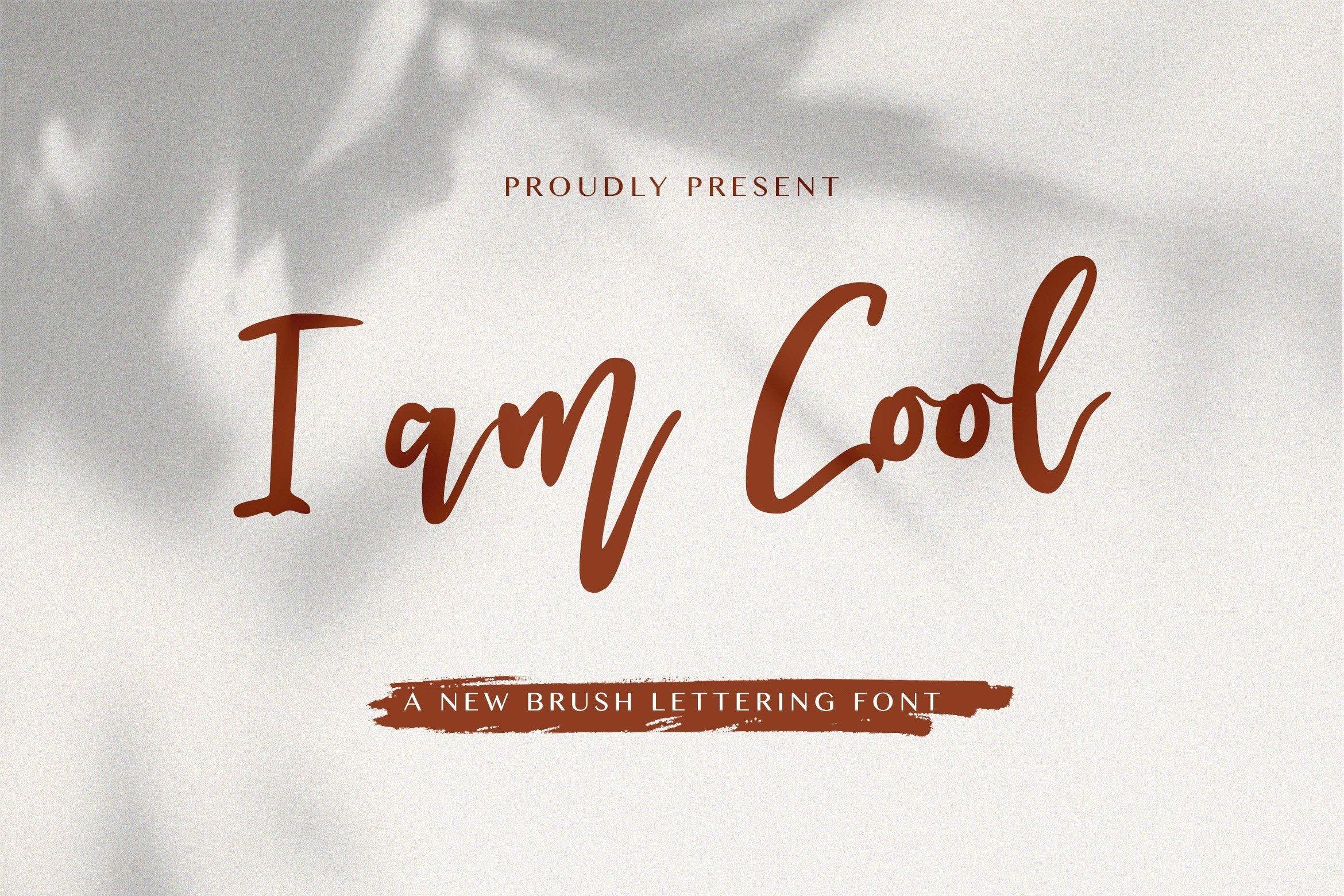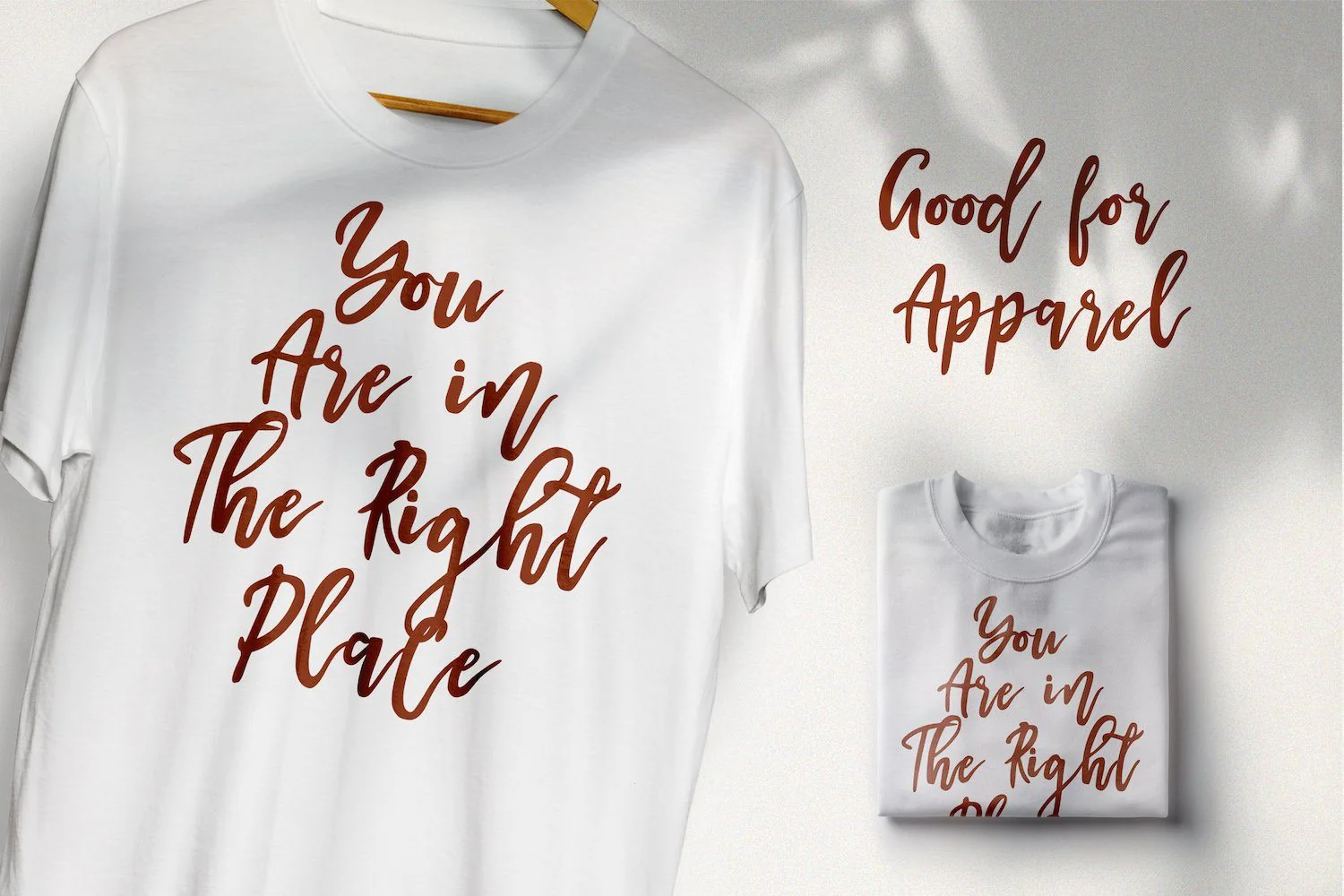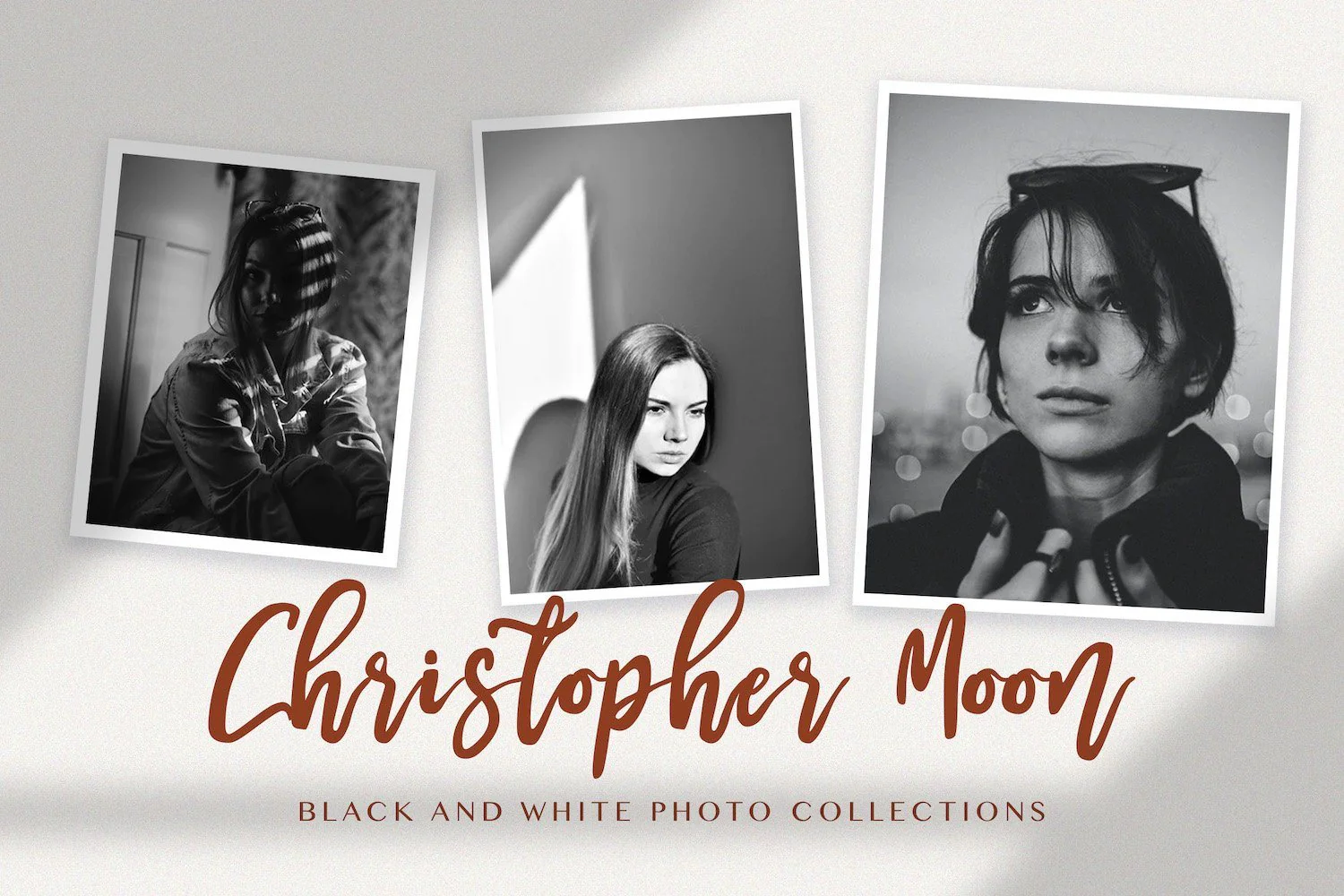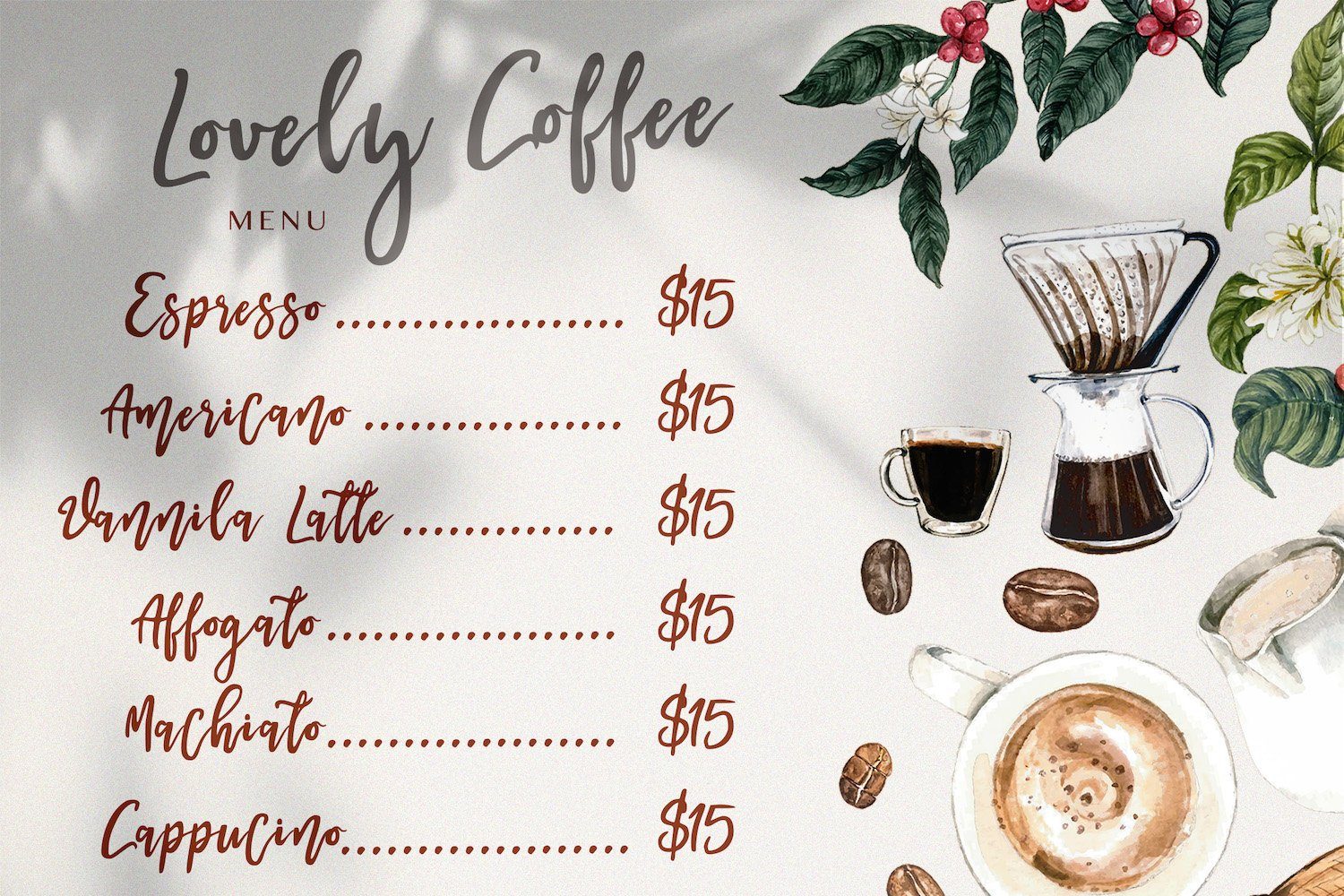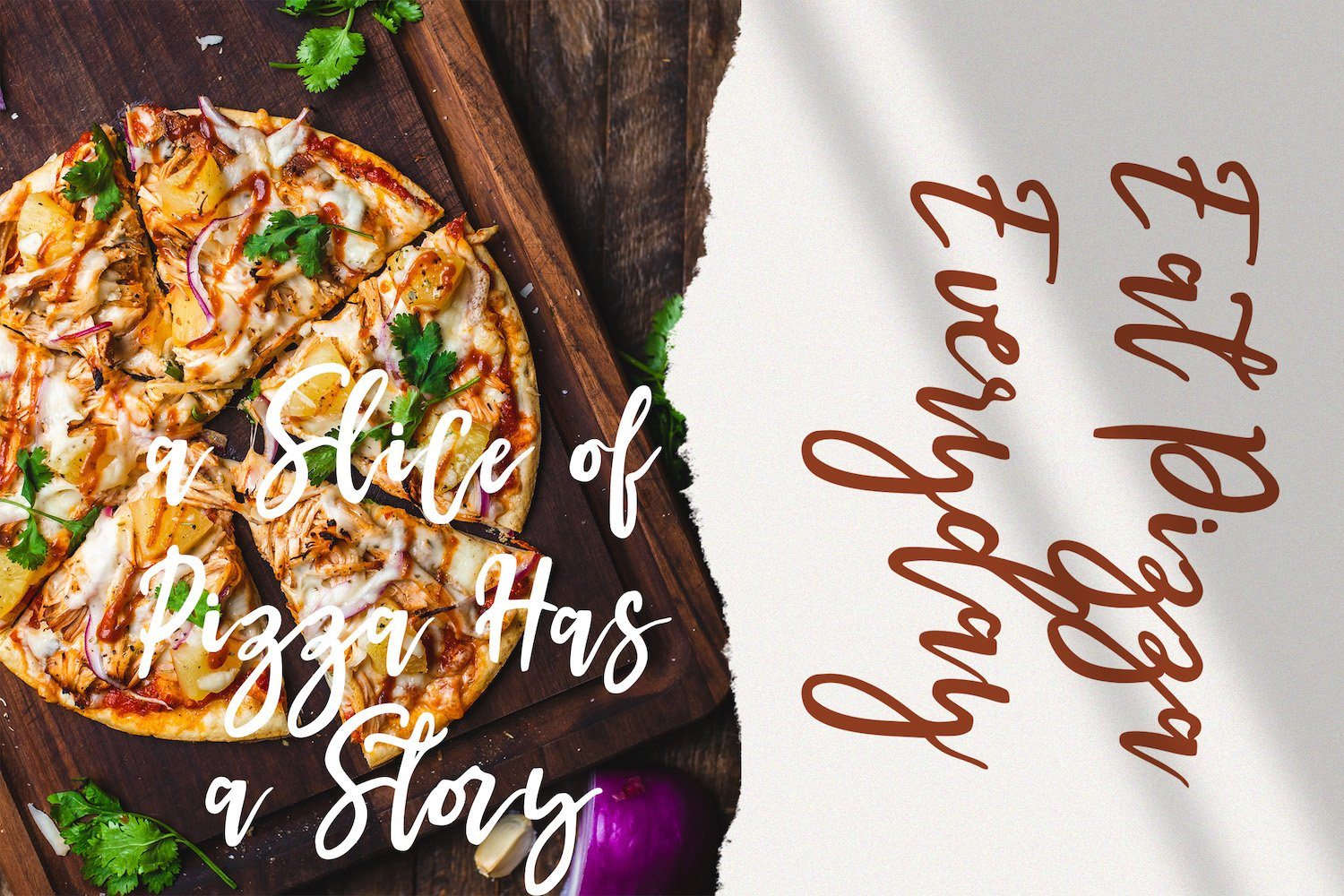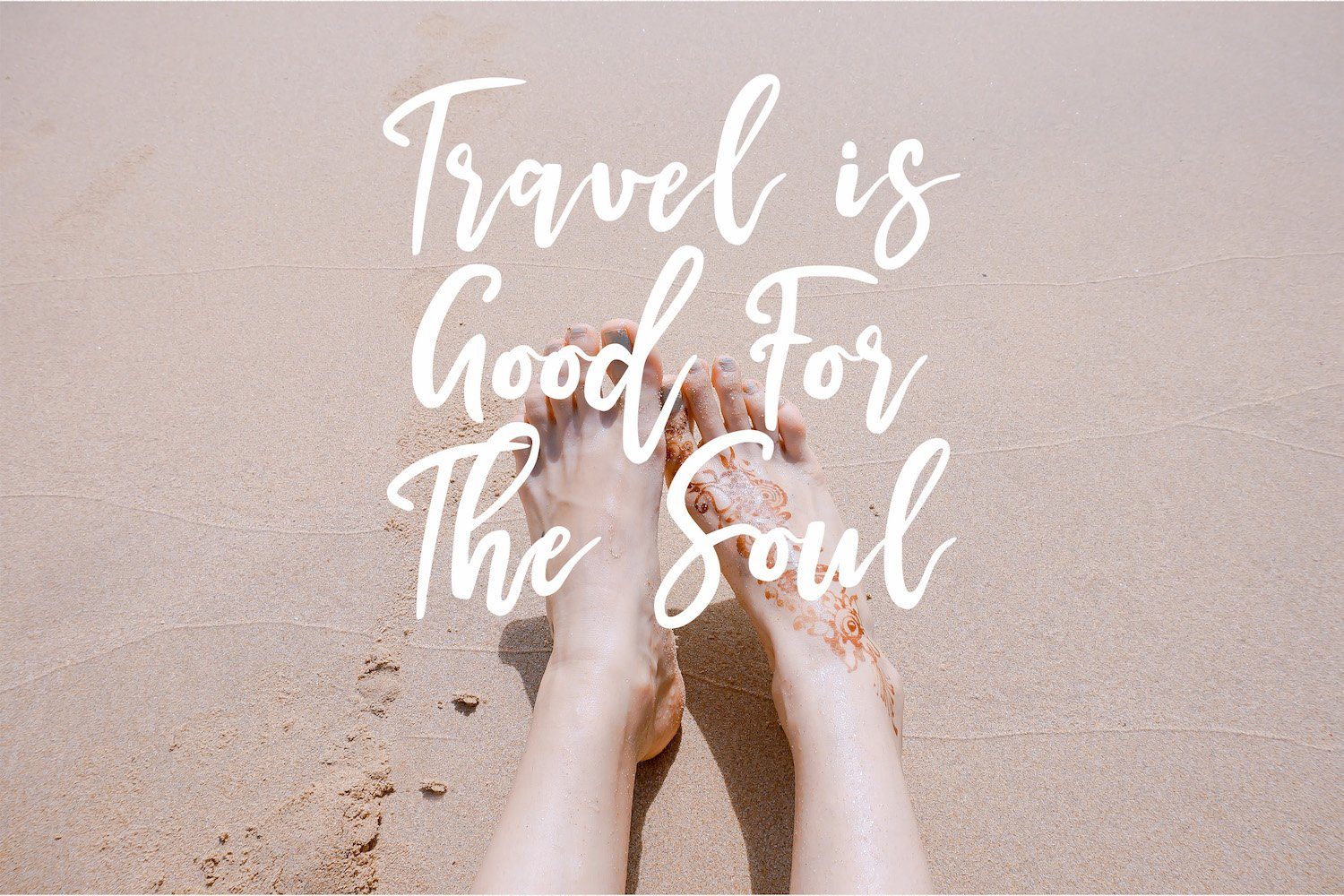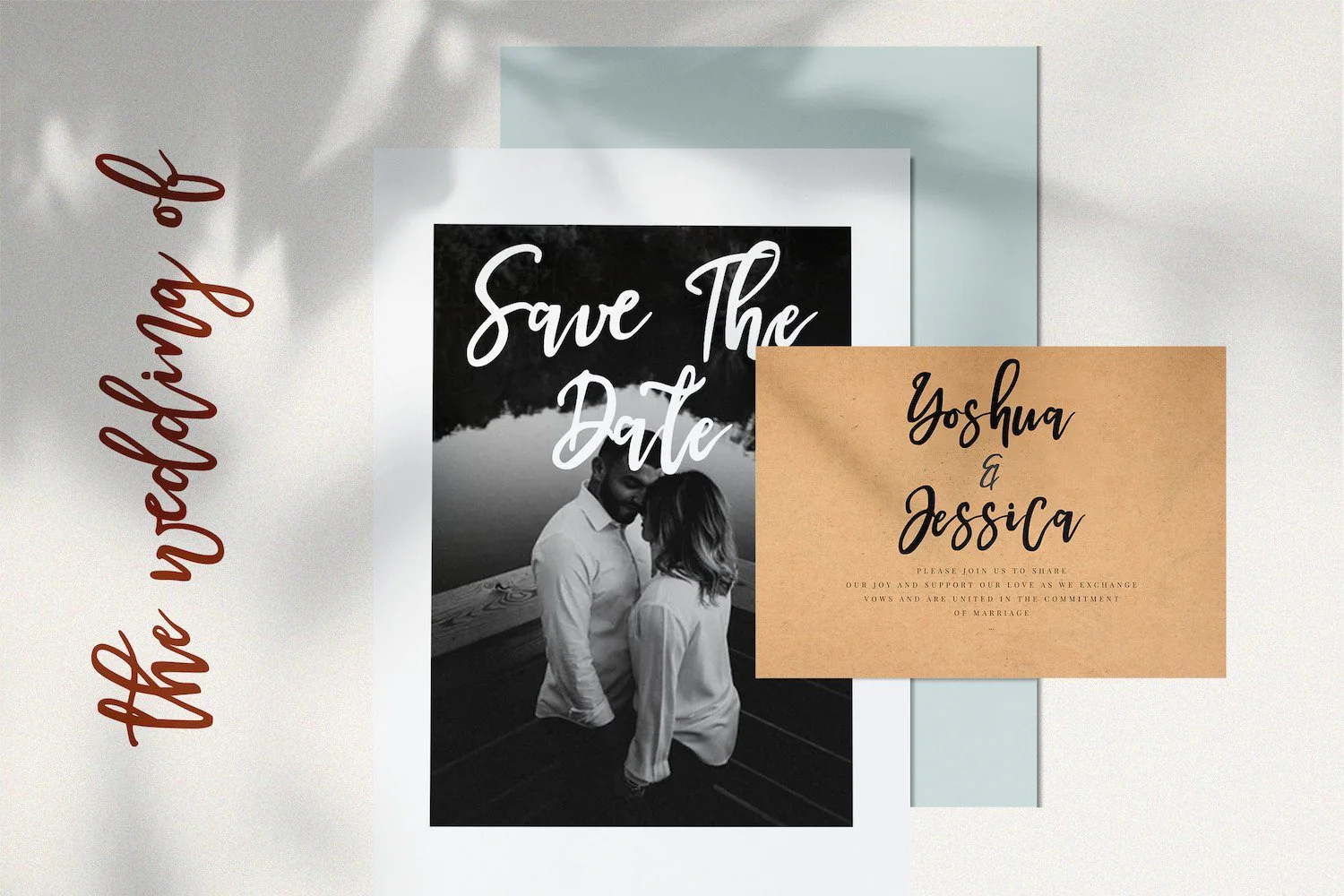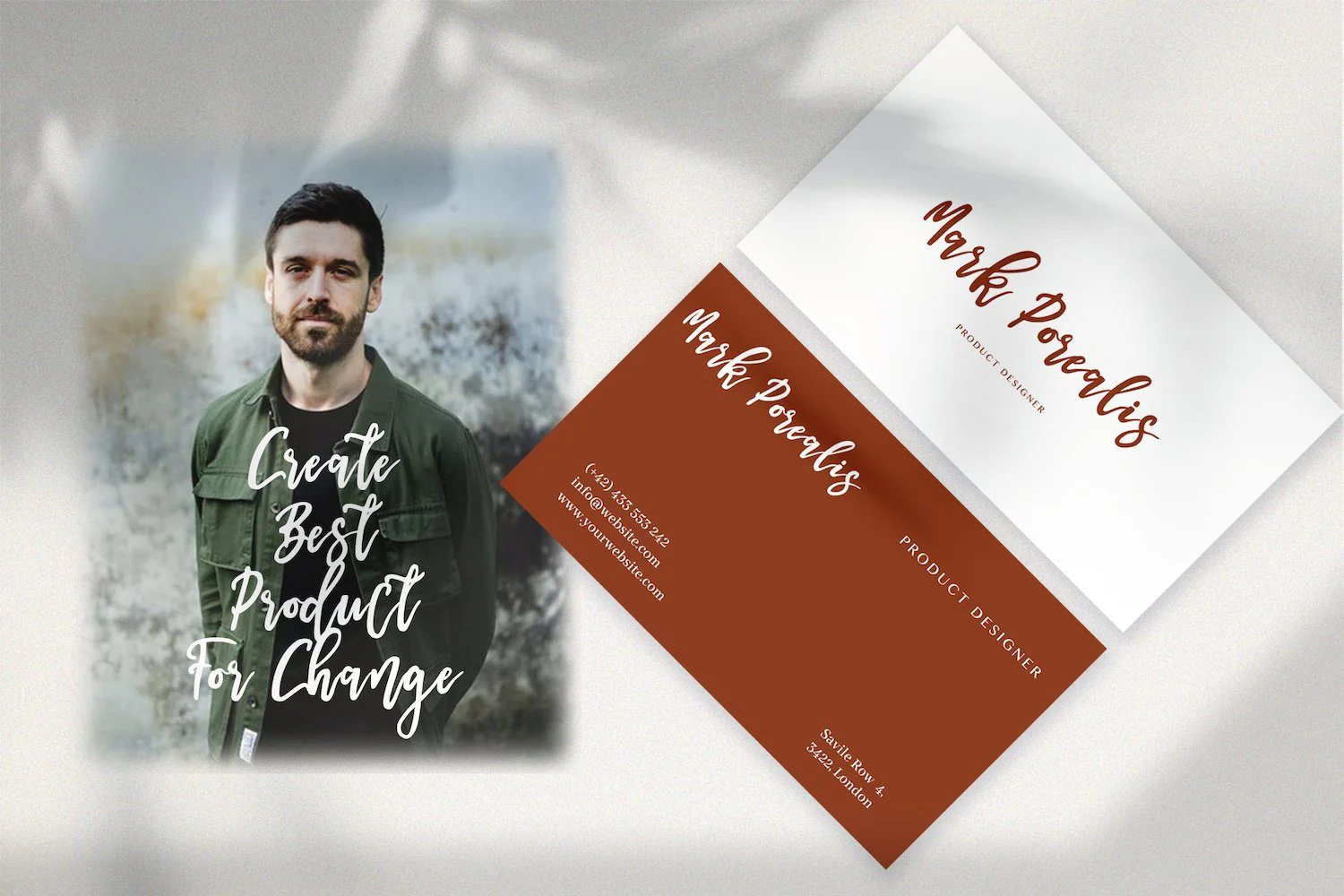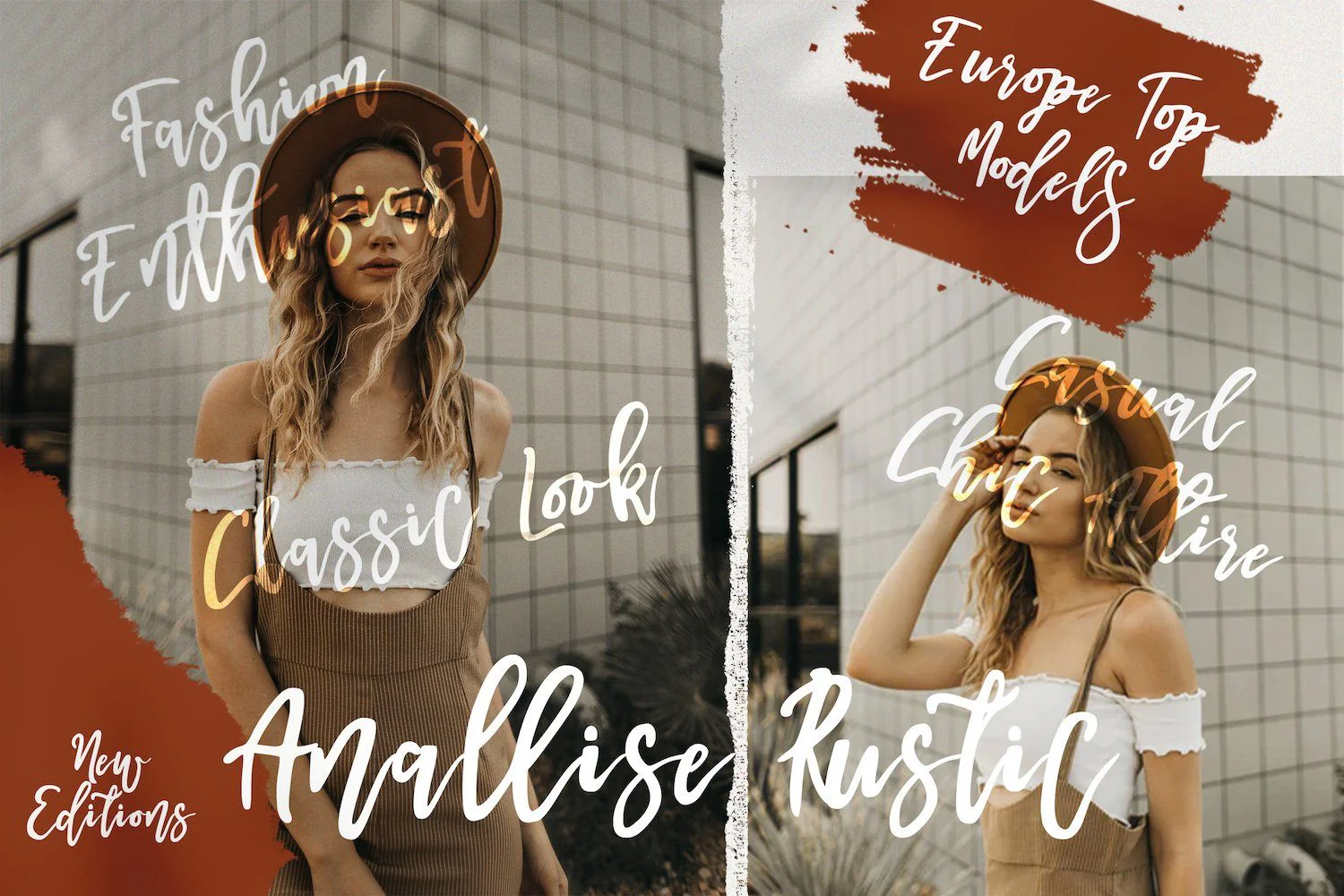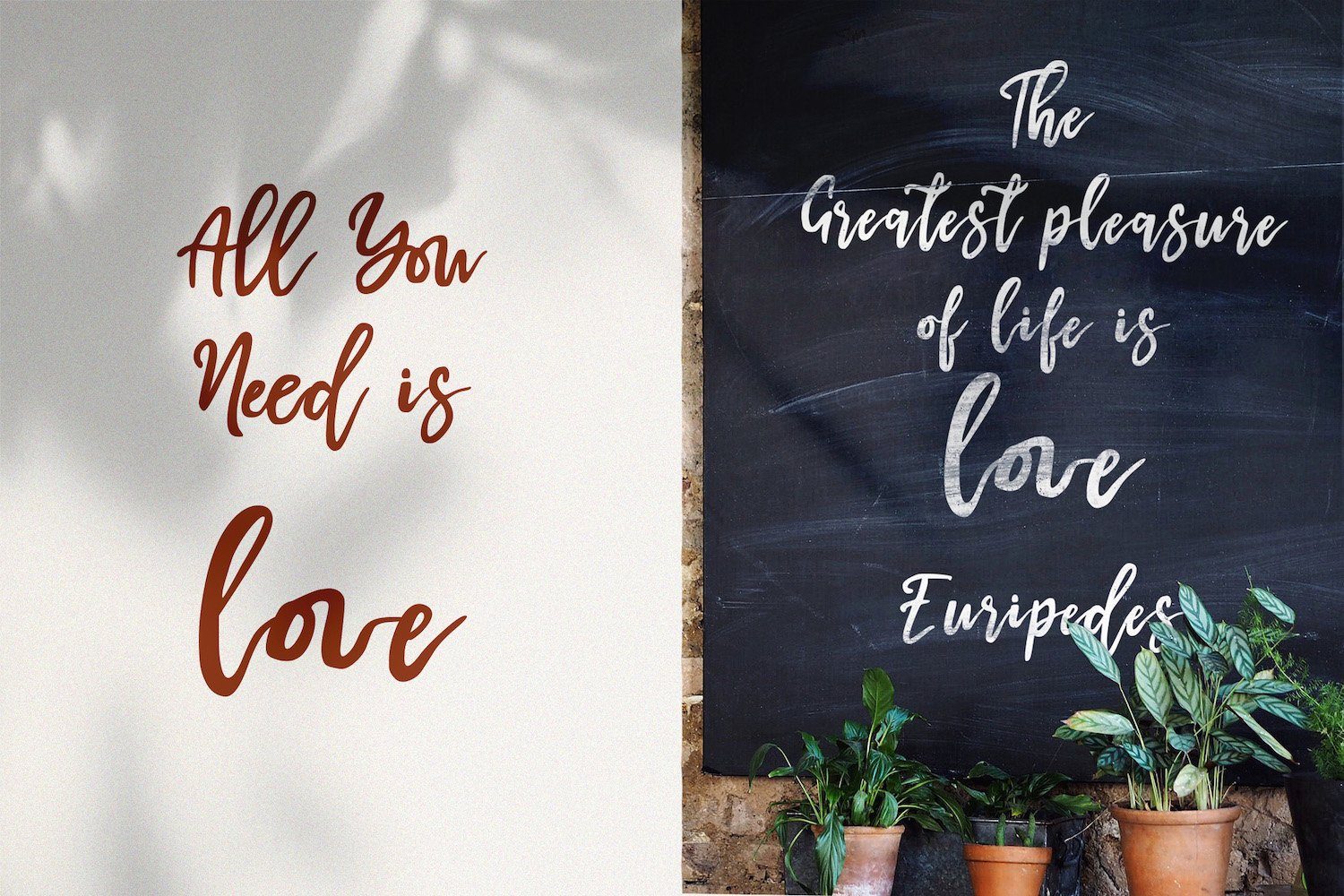
I am Cool - Brush Script Font
Introducing I am Cool - Brush Script Font
I am Cool is a script font with hand lettering brush style. The I am Cool font made with digital brush pen strokes that making this font look authentic. This font is perfect for fashion brand, wedding invitation, business card, logo brand, signature, and then calligraphy.
This Font contains Elegant, Creative, and has a Unique Concept.
Introducing I am Cool - Brush Script Font
I am Cool is a script font with hand lettering brush style. The I am Cool font made with digital brush pen strokes that making this font look authentic. This font is perfect for fashion brand, wedding invitation, business card, logo brand, signature, and then calligraphy.
This Font contains Elegant, Creative, and has a Unique Concept.